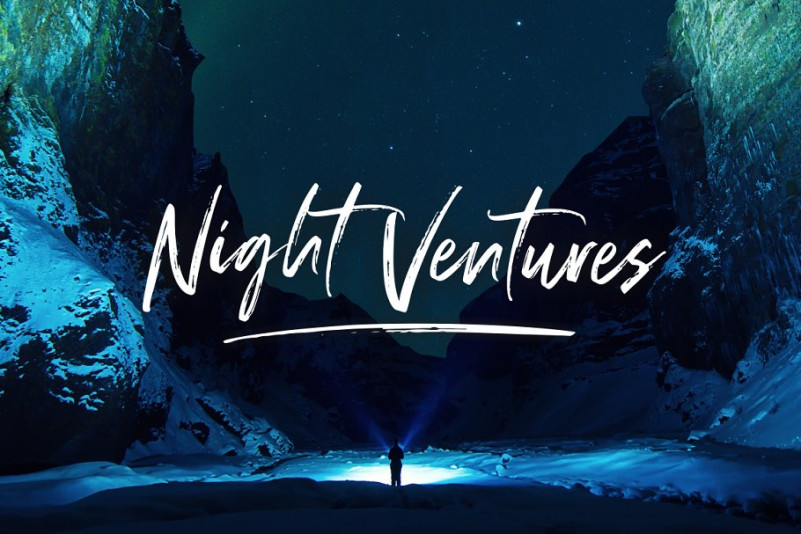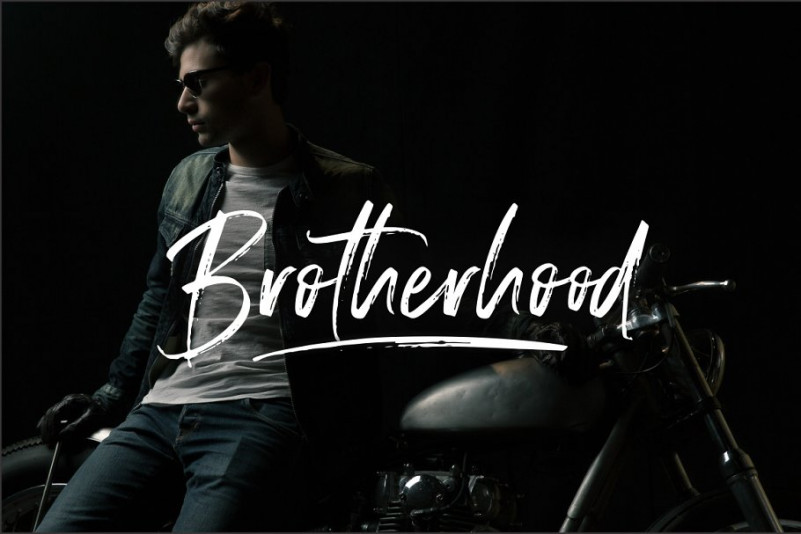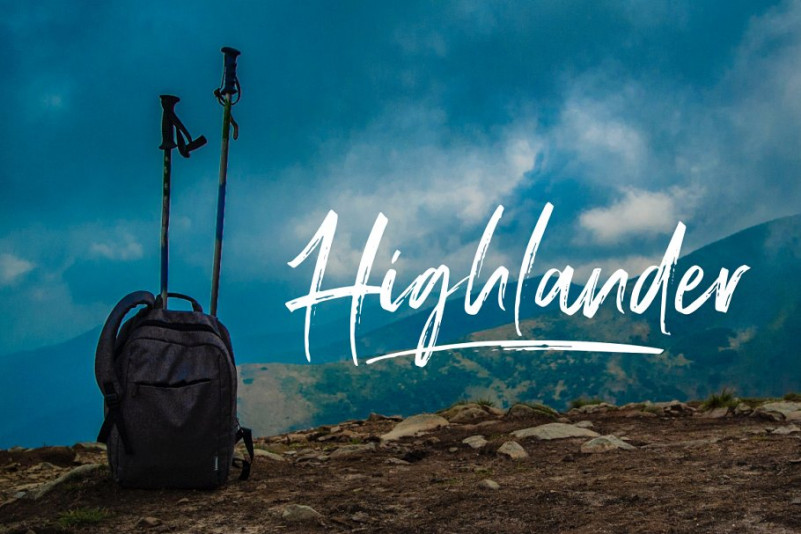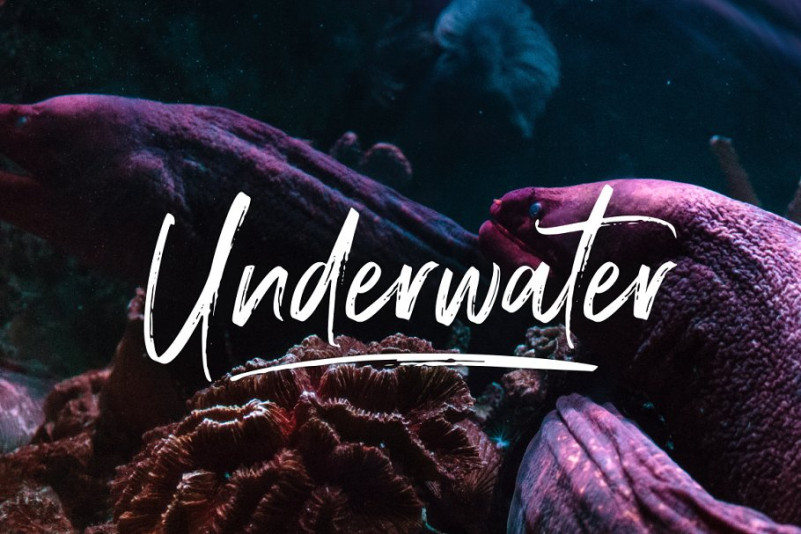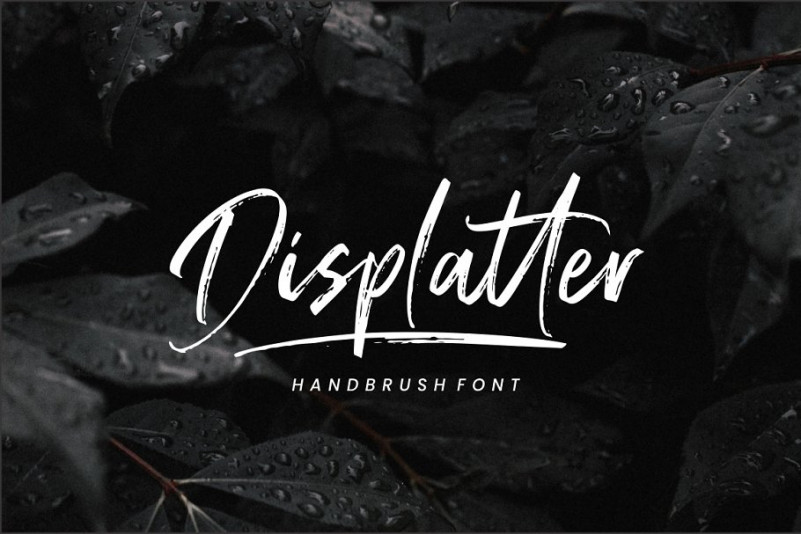
Displatter Handbrush Font
I am happy to present you a modern brush font. This is a natural hand brushed font. Work great for any design needs! Introducing Displatter Font. Displatter Handbrush Font is a natural handbrused font, this font Is perfect for logo, invitation, stationery, wedding designs, social media posts, advertisements, product packaging, product designs, label, photography, watermark, special events or anything. Displatter comes with full set of uppercase and lowercase letters, multilingual symbols, numerals, punctuation.